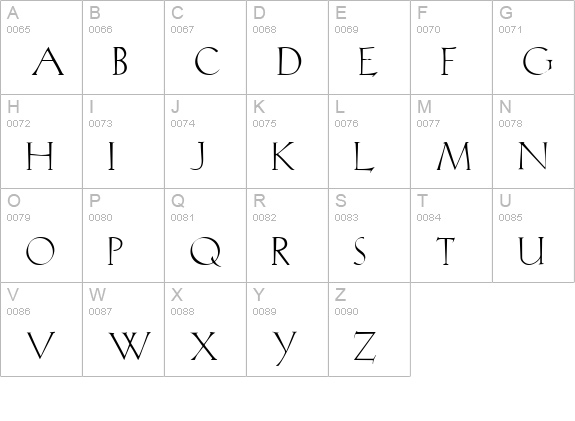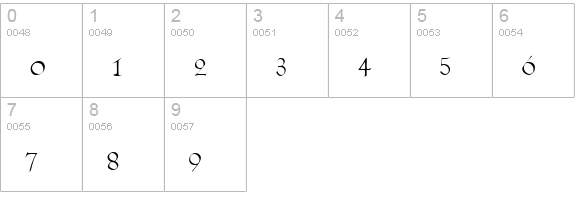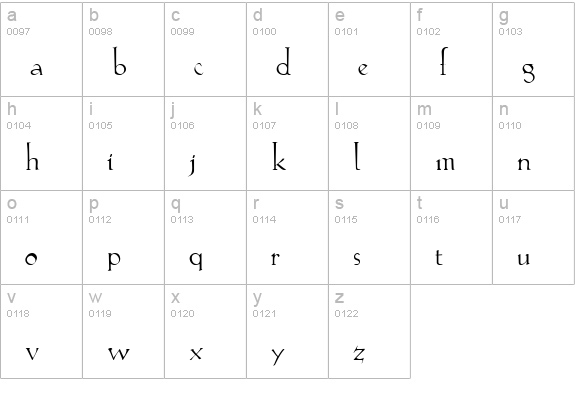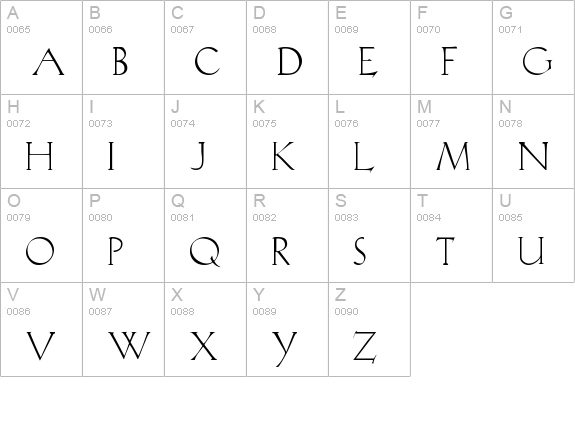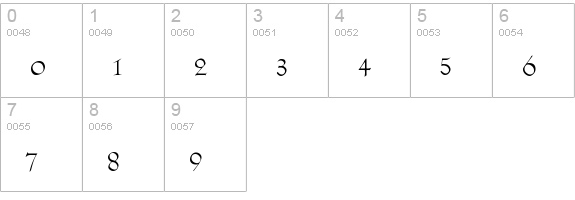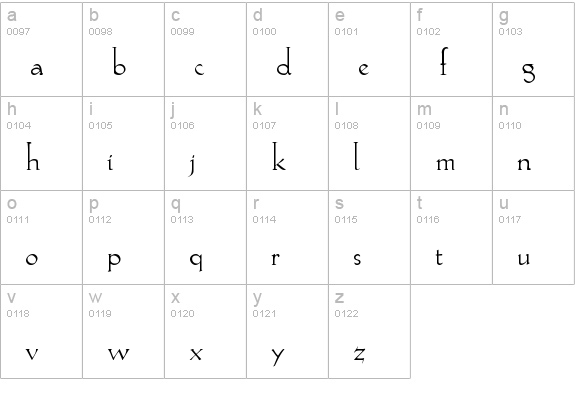
Lilith-Light Regular is a refined, elegant variant in the Lilith typeface family \xE2\x80\x94 well suited to elegant body text, refined sub-headings, and luxury branding.
Lilith-Light Regular is a modern and elegant font that exudes sophistication and style. Its sleek lines and clean curves make it perfect for a variety of design projects, from branding to editorial layouts. The light weight of this font adds a touch of delicacy and refinement, making it ideal for conveying a sense of elegance and class. What makes Lilith-Light Regular even more appealing is that it is available for free download at FontsMarket.com. This means that you can easily access this beautiful font and use it in your projects without any cost. Whether you are a designer looking to elevate your creations or a business owner wanting to enhance your branding, Lilith-Light Regular is a versatile and high-quality font that will surely impress. Download it today and add a touch of sophistication to your designs!